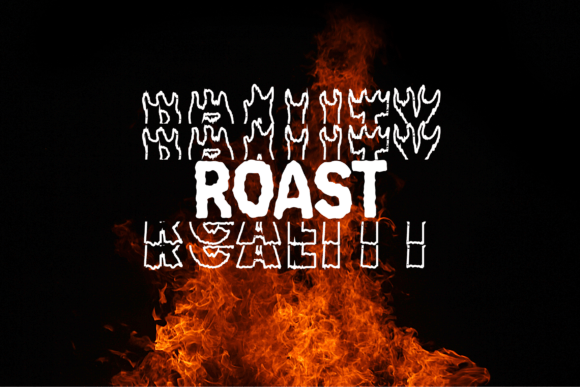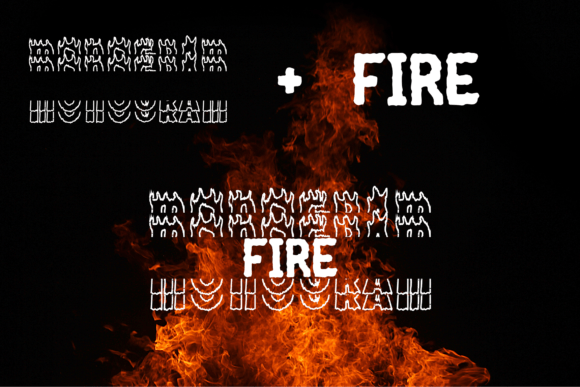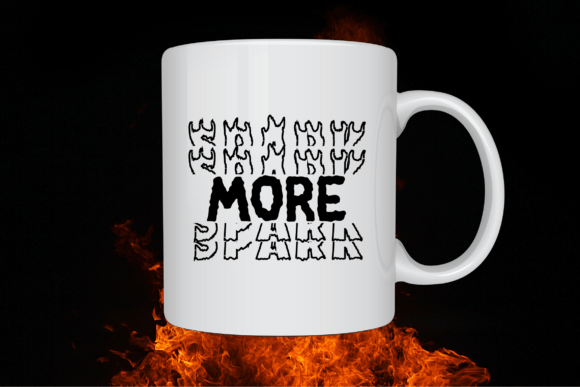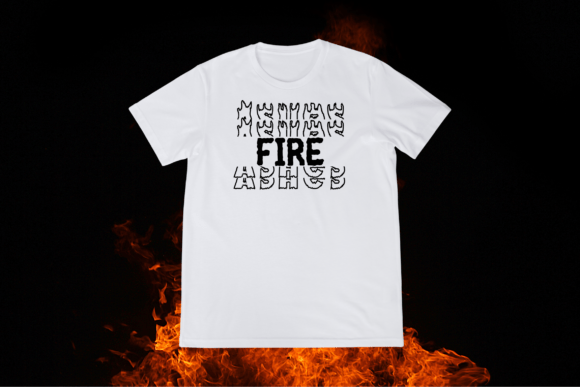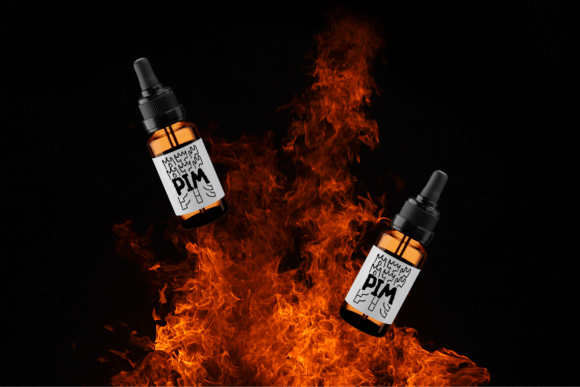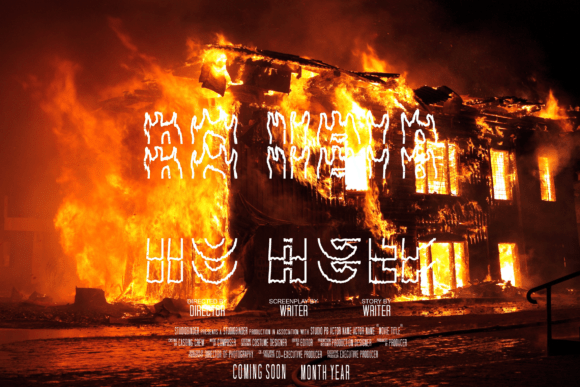
Ignite Your Designs with Fire Monogram Font: Unleash the Power of Handwriting Fire
Are you tired of using the same old fonts in your designs? Do you want to add a spark of intensity and make your typographical elements sizzle and pop? Look no further than the Fire Monogram Font, specifically the Handwriting Fire font. This lively and daring handwritten font is crafted from organic brush strokes and infused with the dynamism of a roaring flame, making it perfect for designers and crafters who want to unleash the fervor and flair of their designs.
The Inspiration Behind Handwriting Fire
Handwriting Fire is more than just a font – it’s an expression of energy and passion. The font’s unique design is inspired by the organic brush strokes of a roaring flame, giving it a vibrant and dynamic feel. The result is a font that encapsulates vigor, sentiment, and genuineness, making it perfect for a wide range of design applications.
Endless Design Possibilities with Handwriting Fire
Whether you’re a designer, crafter, or DIY enthusiast, Handwriting Fire offers endless possibilities for creative expression. Here are just a few ideas to get you started:
- Bold Logos: Create audacious logos that make a statement with Handwriting Fire. The font’s bold and dynamic design is perfect for businesses that want to stand out from the crowd.
- Provocative Posters: Add a spark of intensity to your poster designs with Handwriting Fire. The font’s vibrant and energetic feel is sure to grab attention and leave a lasting impression.
- Memorable Branding: Establish a strong brand identity with Handwriting Fire. The font’s unique design and dynamic feel make it perfect for creating memorable and distinctive branding.
- Distinctive Album Covers: Add a touch of elegance and sophistication to your album covers with Handwriting Fire. The font’s bold and dynamic design is perfect for music artists who want to make a statement.
- Powerful Quotes: Make your quotes and sayings more impactful with Handwriting Fire. The font’s vibrant and energetic feel is sure to add emphasis and make your message more memorable.
Key Features of Handwriting Fire
So, what sets Handwriting Fire apart from other fonts? Here are some of its key features:
- Organic Brush Strokes: Handwriting Fire is crafted from organic brush strokes, giving it a unique and dynamic feel.
- Dynamic Design: The font’s design is infused with the dynamism of a roaring flame, making it perfect for designs that require energy and passion.
- Vibrant and Energetic: Handwriting Fire has a vibrant and energetic feel that’s sure to add a spark of intensity to your designs.
- Bold and Daring: The font’s bold and daring design makes it perfect for designs that require a statement.
Tips for Using Handwriting Fire in Your Designs
Here are some tips for using Handwriting Fire in your designs:
- Use it sparingly: Handwriting Fire is a bold and dynamic font, so use it sparingly to avoid overwhelming your design.
- Experiment with colors: The font’s vibrant and energetic feel lends itself well to bold and bright colors.
- Pair it with neutral fonts: Pair Handwriting Fire with neutral fonts to create a striking contrast and add emphasis to your design.
In conclusion, Handwriting Fire is a unique and dynamic font that’s perfect for designers and crafters who want to add a spark of intensity to their designs. With its organic brush strokes, dynamic design, and vibrant and energetic feel, Handwriting Fire is sure to unleash the fervor and flair of your designs. So why wait? Try Handwriting Fire today and ignite your designs with its powerful and bold monogram font.